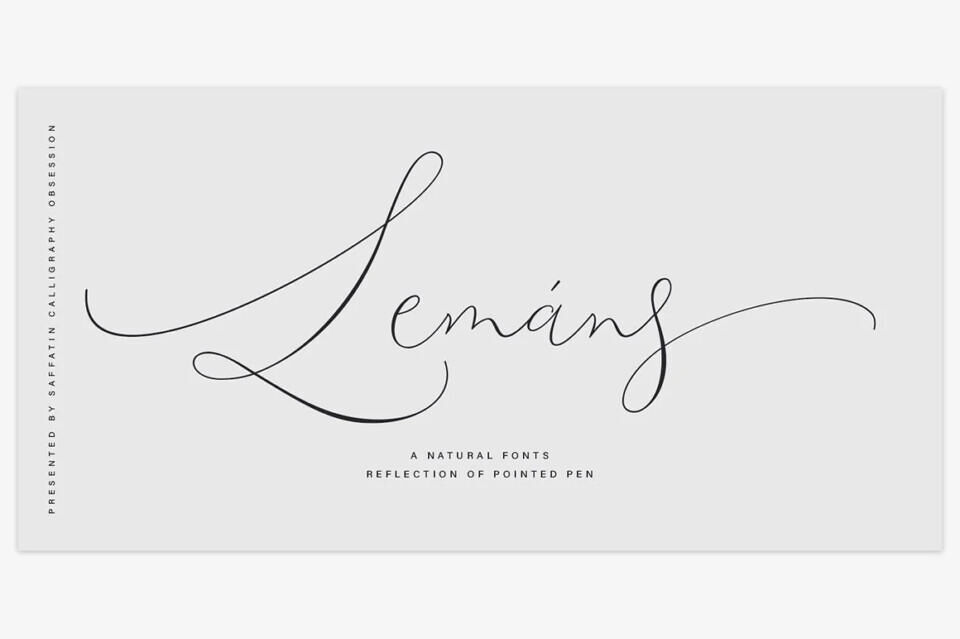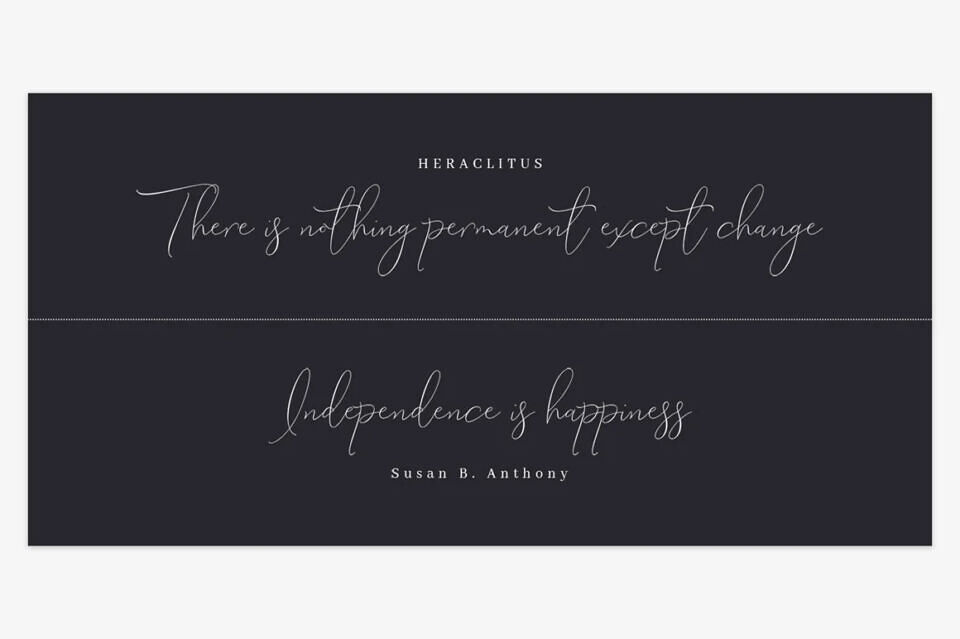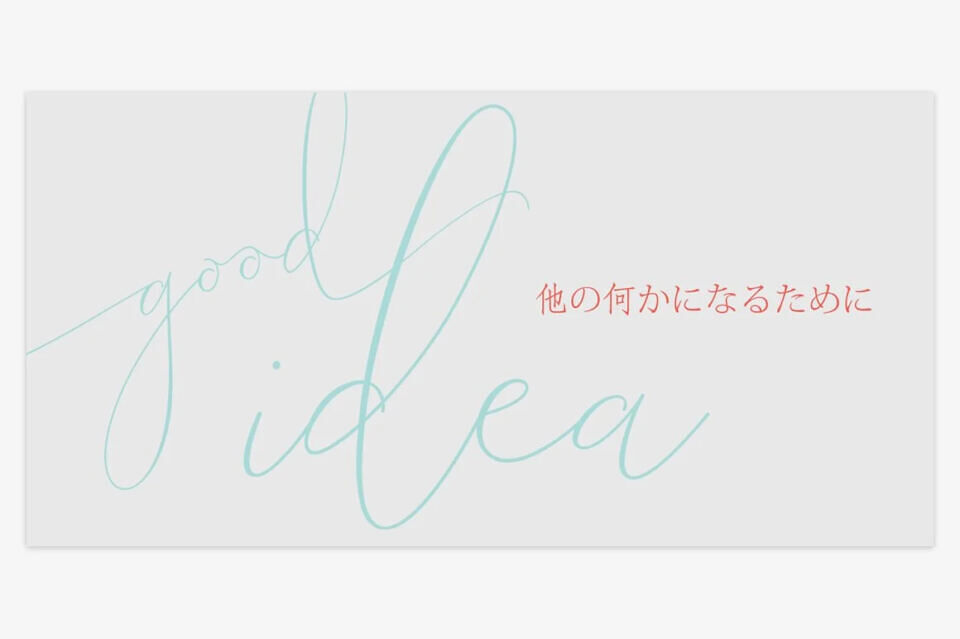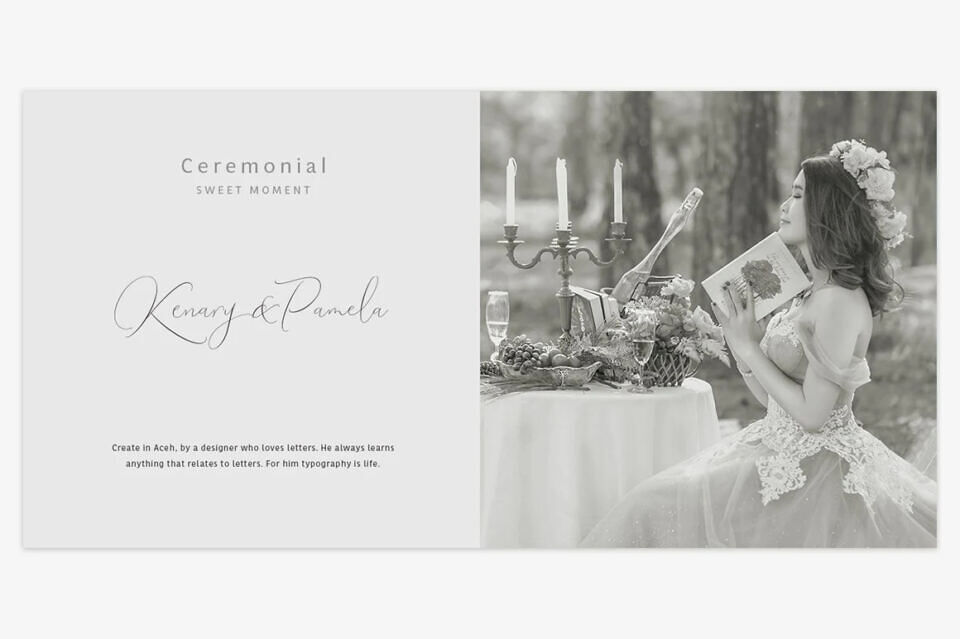
Dive into the dynamic fusion of calligraphy elegance and contemporary flair with Lemans Pen Script. This font is a testament to the marriage of traditional penmanship and modern aesthetics, resulting in a slim, spontaneous, and wildly clean design.
Lemans Pen Script boasts a full set of captivating uppercase and lowercase letters, along with numerals and an extensive range of punctuation to meet all your design needs. But what truly sets it apart are the intricate ligatures that add a touch of sophistication to every word.